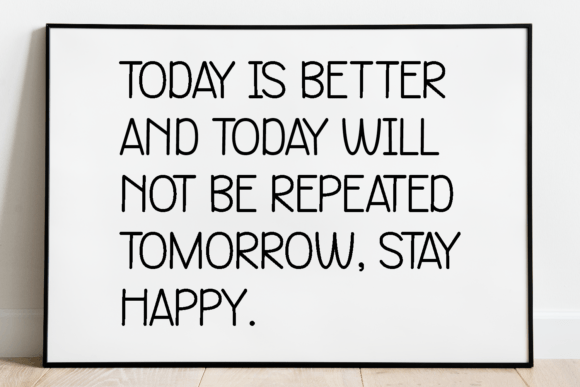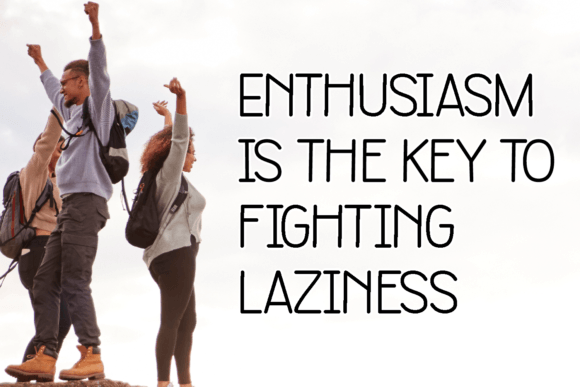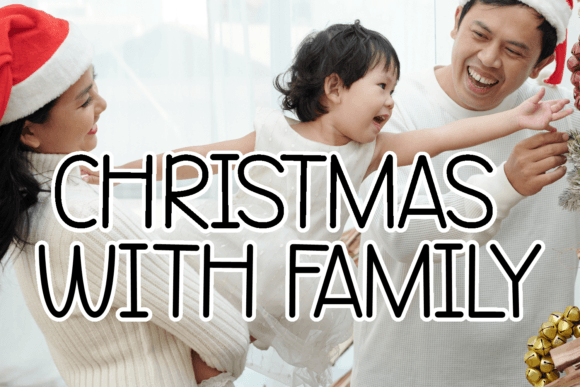
Introduction to Minimal Moment Font
Have you ever found yourself lost in a moment of pure creativity, where the words just flow and the design comes alive? That’s the magic of Minimal Moment Font, a beautifully crafted typeface that captures the essence of simplicity and elegance. As a designer, you know how crucial it is to have the right tools to bring your vision to life, and that’s exactly what Minimal Moment Font offers.
With its clean lines, subtle curves, and transparent background, this font is a design resource like no other. Whether you’re working on a creative project that requires a touch of sophistication or a fun, playful vibe, Minimal Moment Font is the perfect companion. And the best part? It’s available for free download, so you can experiment with it without breaking the bank.
What makes Minimal Moment Font truly special is its high-quality design, crafted to provide a polished and professional finish to your work. Whether you’re a seasoned pro or just starting out, this font is an invaluable addition to your design arsenal.
Key Features of Minimal Moment Font
- High-quality, professional font design ideal for creative projects and various design resources.
- Unique, modern design aesthetic with clean lines and minimalist approach, making it perfect for various design applications.
- Transparent background, allowing for seamless integration with any design or creative project.
- Designed to be highly legible and versatile, making it suitable for a wide range of creative projects, from digital designs to print materials.
Honest Review: Minimal Moment Font
As a designer, I’m always on the lookout for high-quality design resources that can elevate my creative projects. The Minimal Moment Font is one such resource that caught my attention, and I’m excited to share my honest review with you.
- ✨ The font is incredibly versatile, suitable for a wide range of creative projects, from digital to print.
- ✨ The design is clean and minimalist, making it perfect for modern branding and design needs.
- ✨ The transparent background option allows for seamless integration into various design elements.
- ⚠️ The font size may appear small on certain devices, so be sure to test it across different platforms.
- ⚠️ The font may not be suitable for projects that require a lot of bold or dramatic text.
Overall, I’m impressed with the Minimal Moment Font. Its high quality and versatility make it a valuable addition to any designer’s toolkit. While it may have a few limitations, I believe it’s a great resource for designers looking for a clean and modern font.
Tips for Getting the Most Out of the Minimal Moment Font
To get the most out of the Minimal Moment Font, use it for creative projects that require a clean and modern look. The font is perfect for designs with transparent backgrounds and high-quality images.
The Minimal Moment Font is commonly used for logos, branding materials, and marketing materials. It’s also great for creating a consistent design language across various platforms.